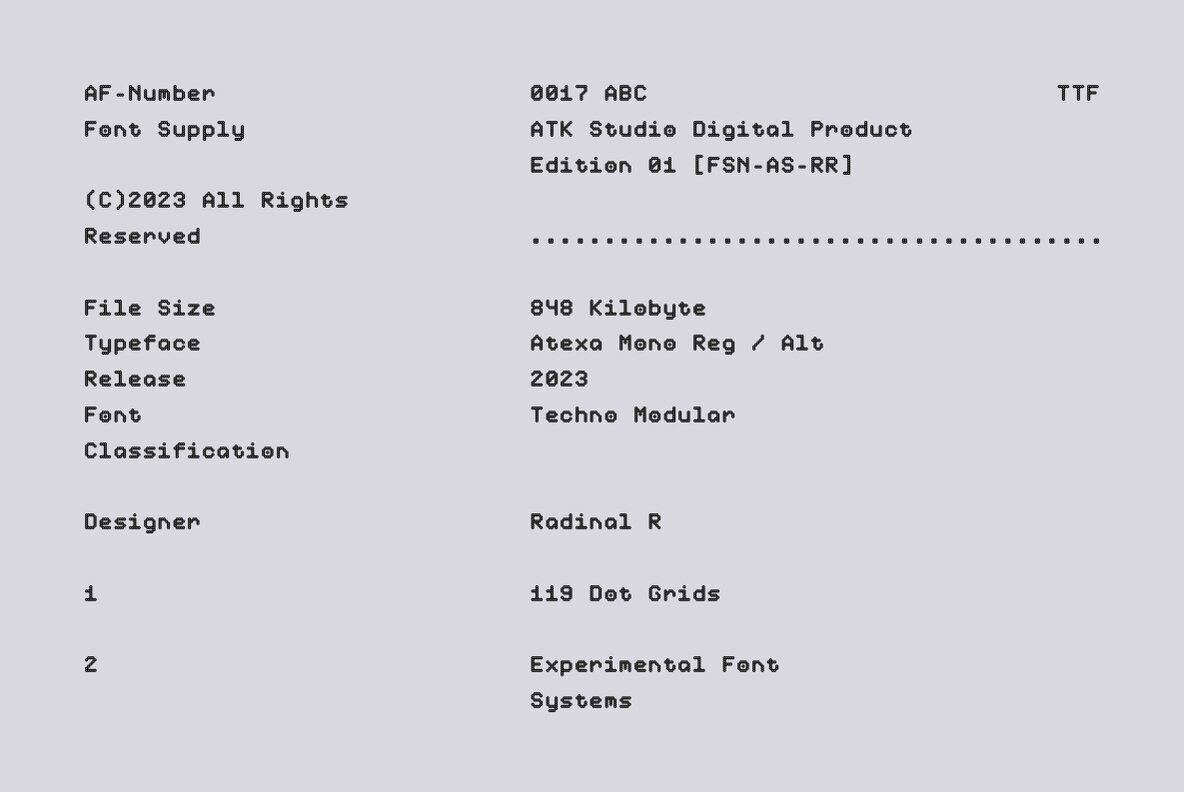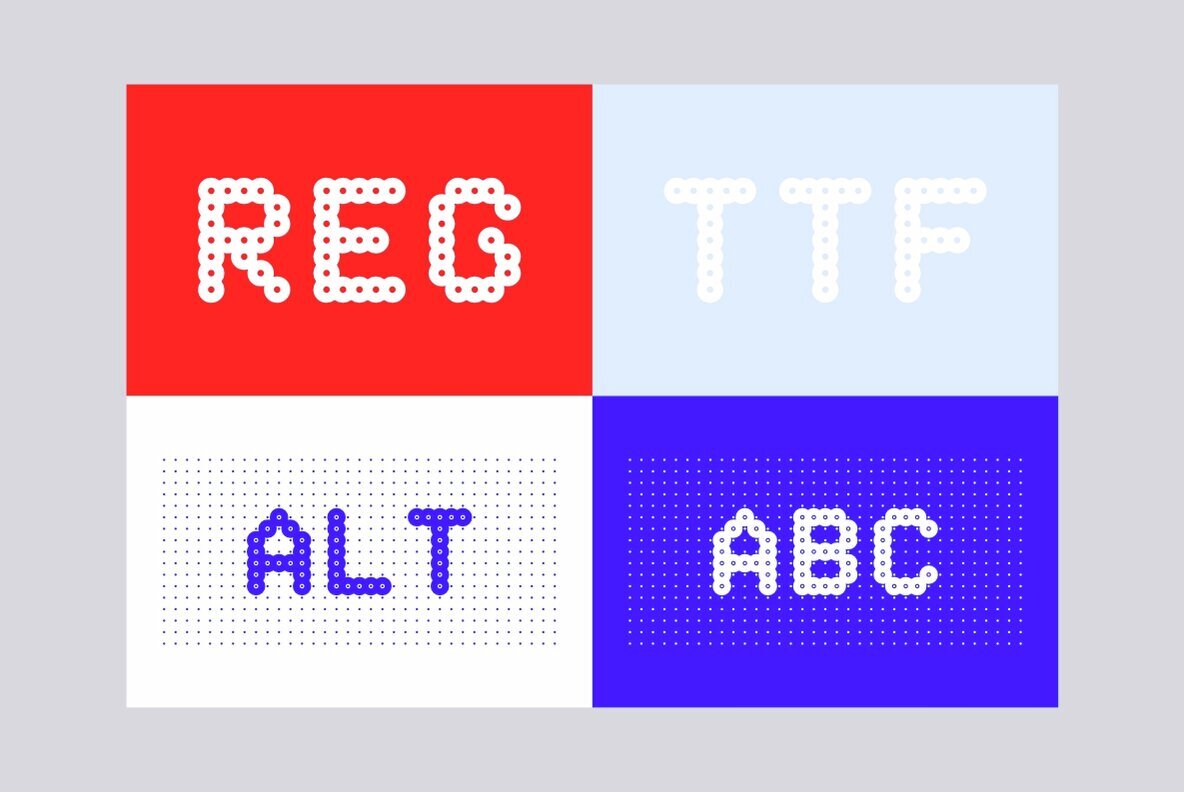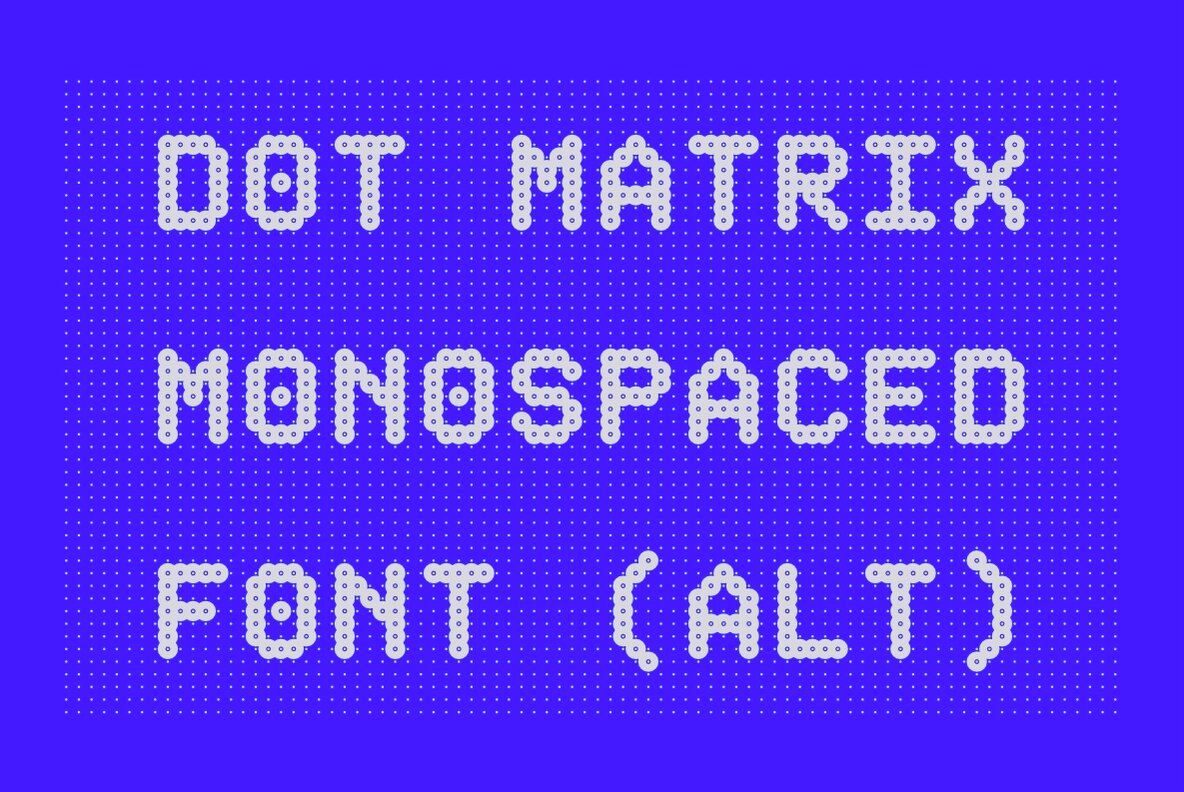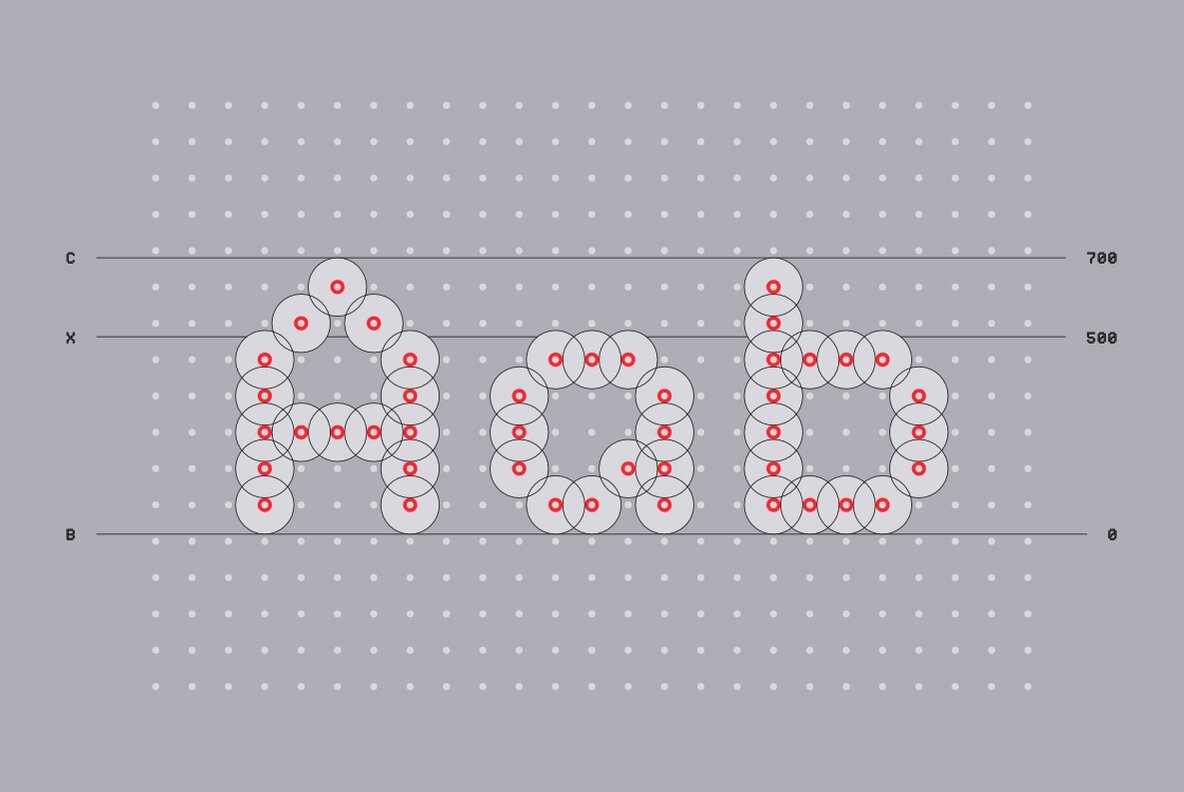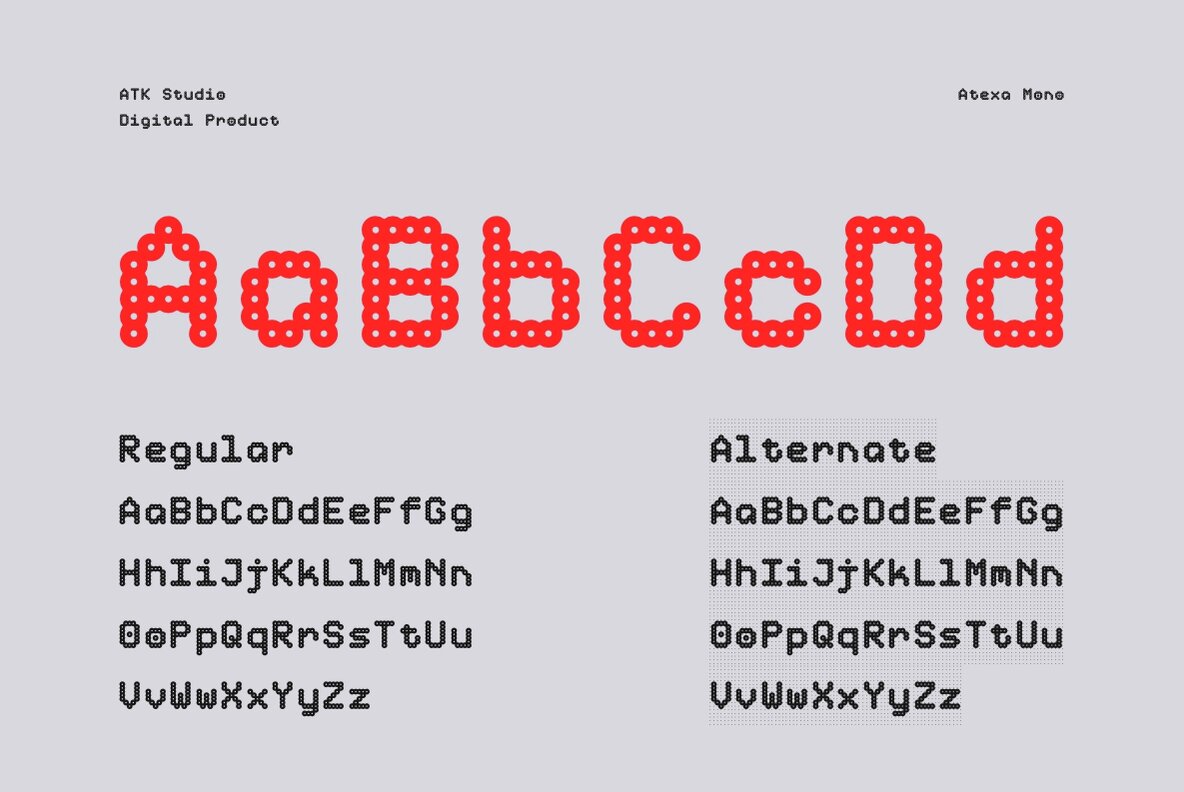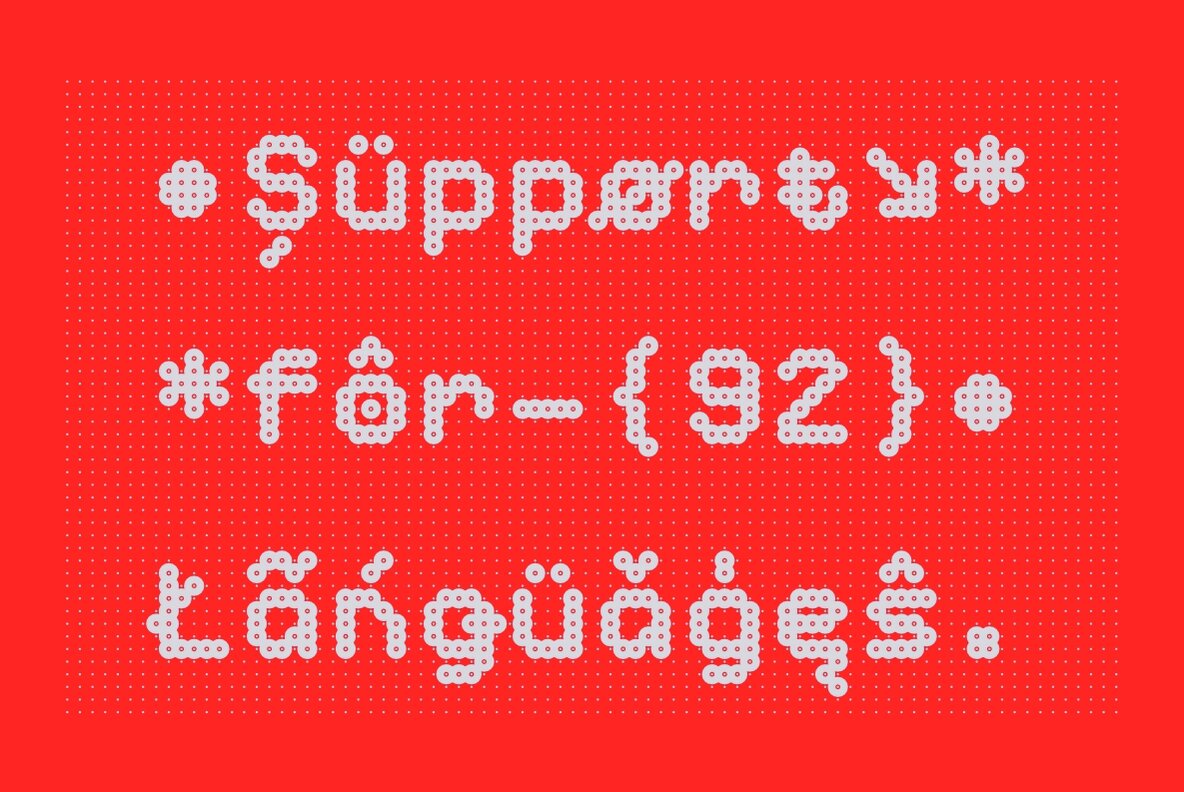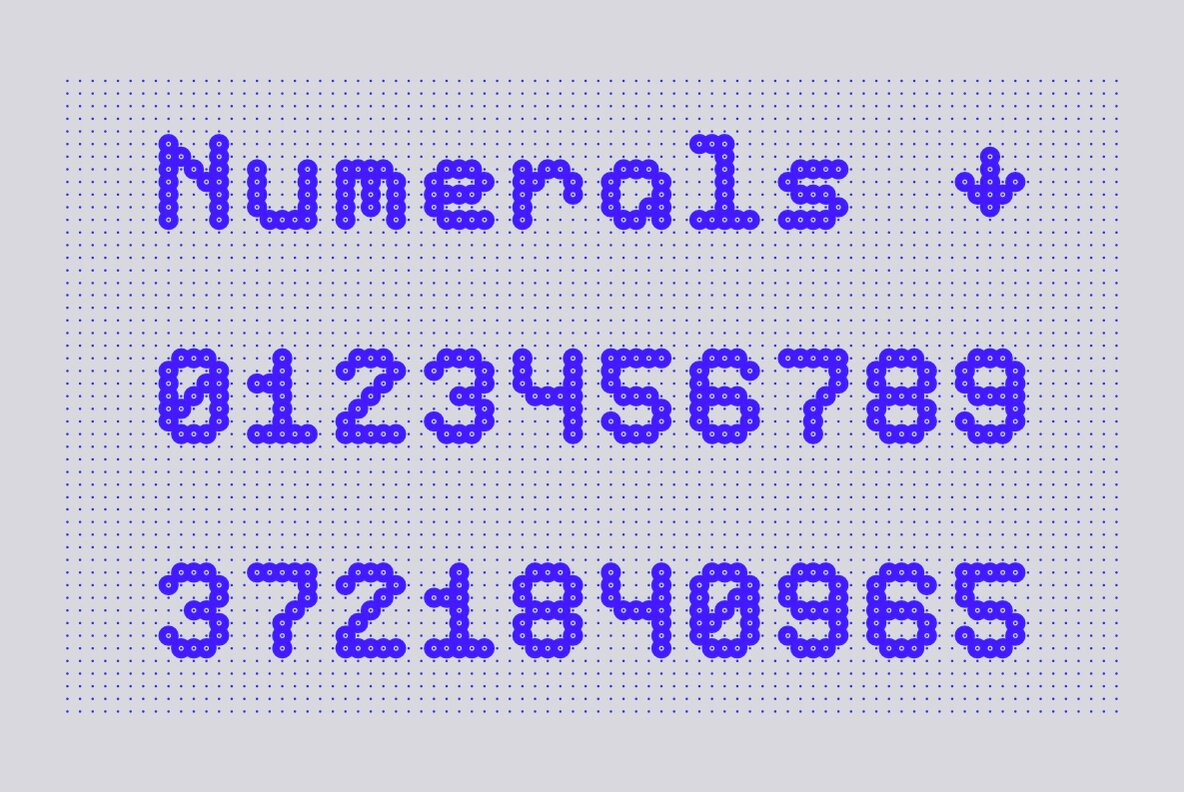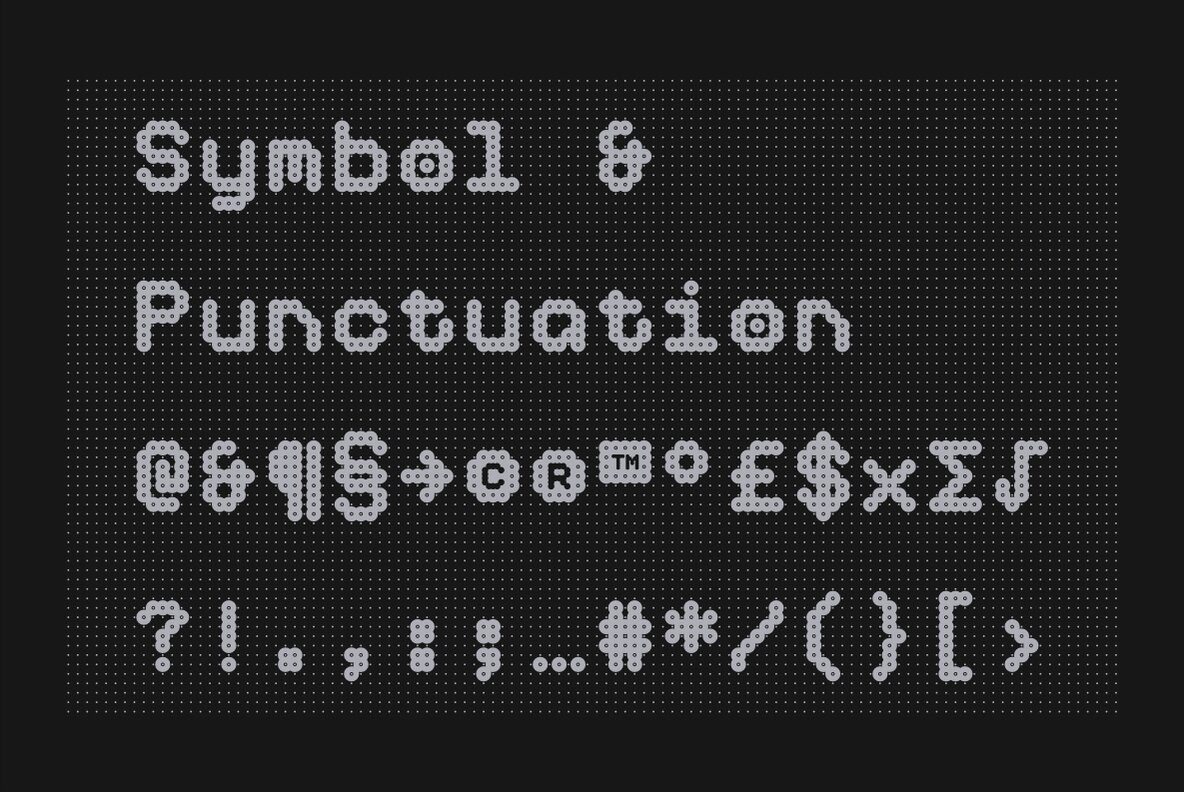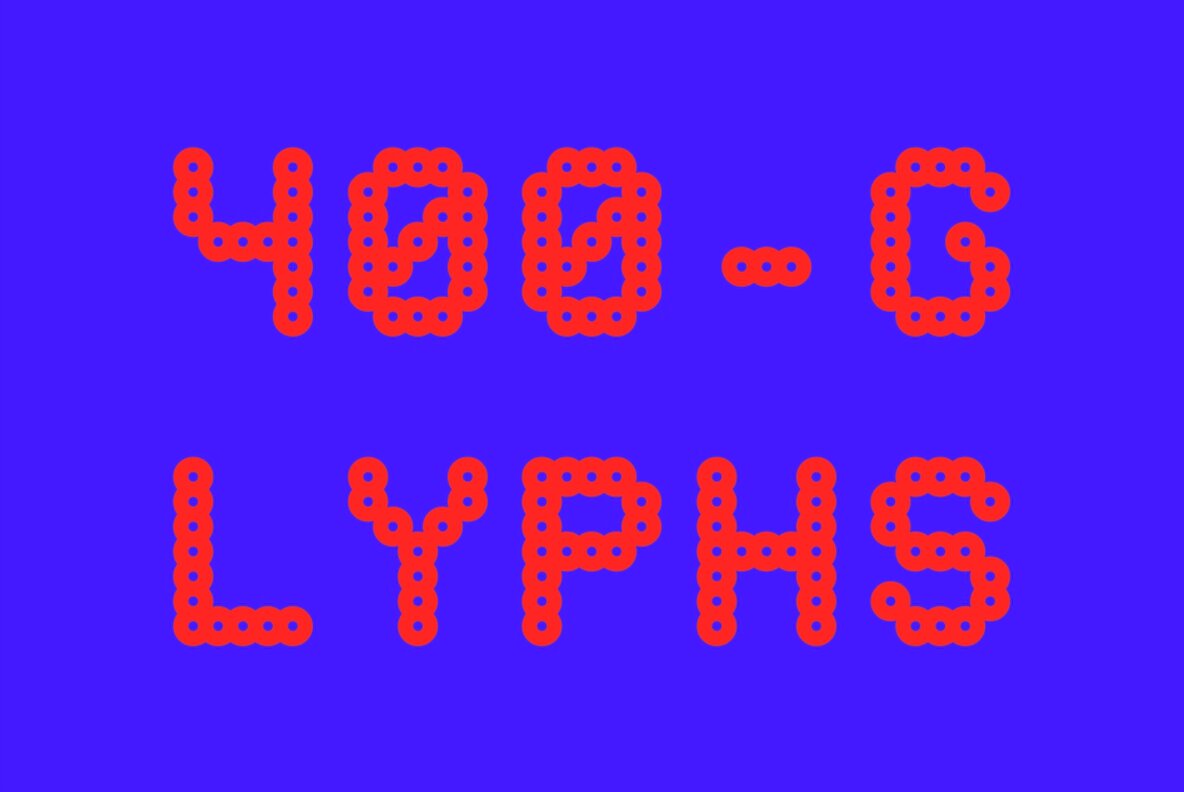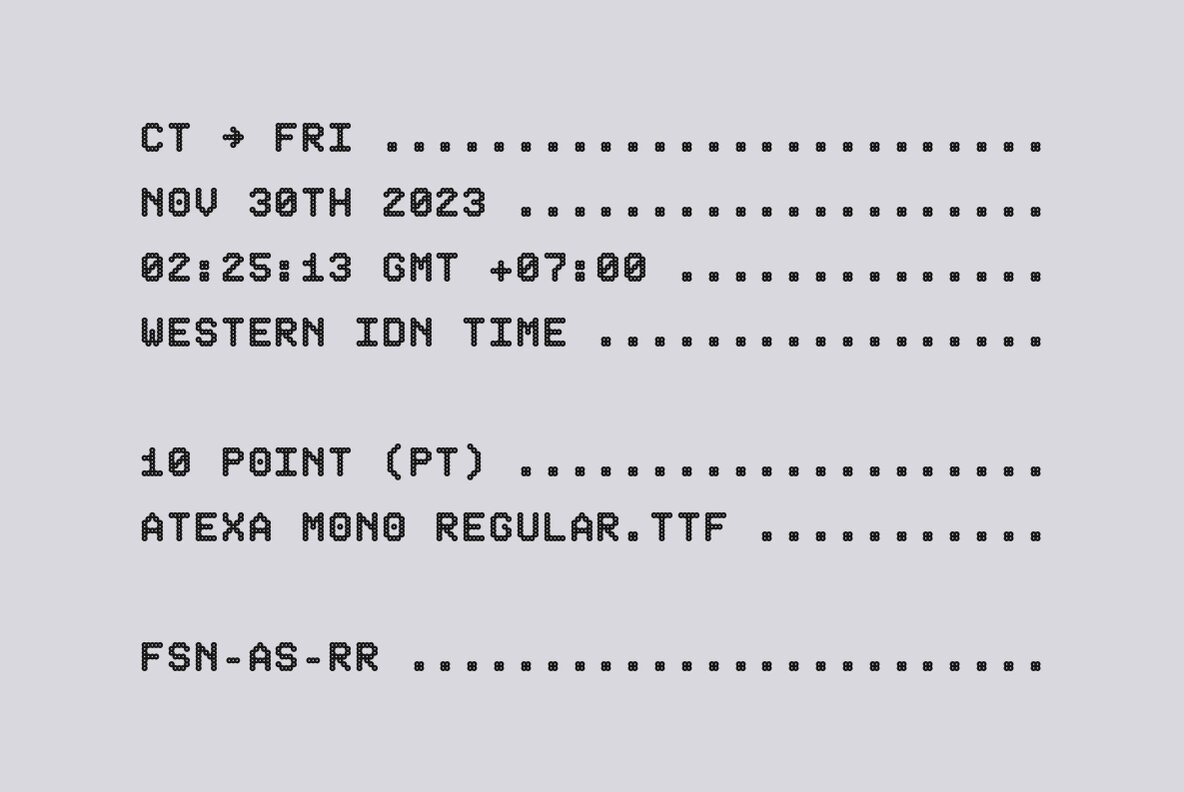
Atexa Mono Font
Atexa Mono is a dot matrix monospaced font inspired by the led running text display. It is available in two different styles (regular and alternate). Drawn by Radinal Riki, Atexa Mono is a pleasant retro look for one of the major developments in the font that offers a technical feeling and a warm complex look. The screen uses a matrix font with a construction grid that is visible with unusual details. The dots that form the letters into the background grid and mix together in unusual formations.